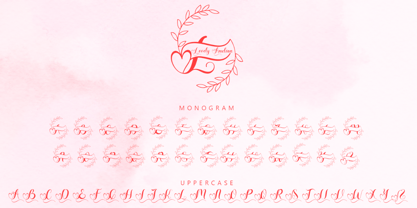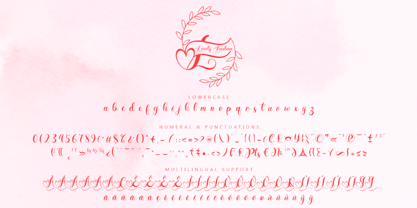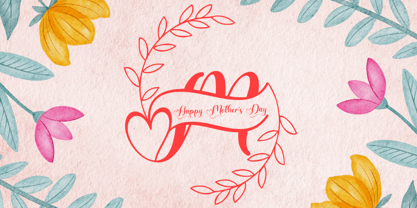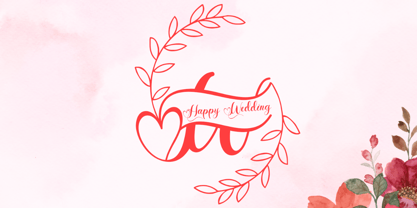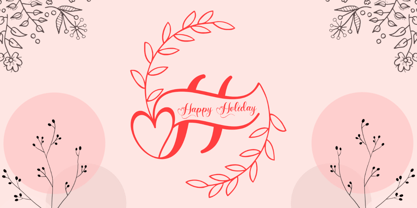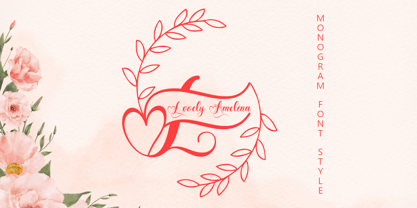
Lovely Amelina Monogram
by Yoga Letter
The Lovely Amelina Monogram Font Family was designed by Isroni Yoga Prasetya and published by Yoga Letter. Lovely Amelina Monogram contains 2 styles and family package options. More about this family
"Lovely Amelina Monogram" is a beautiful and elegant monogram font. It comes with monogram, uppercase, lowercase, numbers, punctuation, and multilingual support. It is perfect for wedding, summer, spring, print, invitation, gift, sticker, flower, etc.